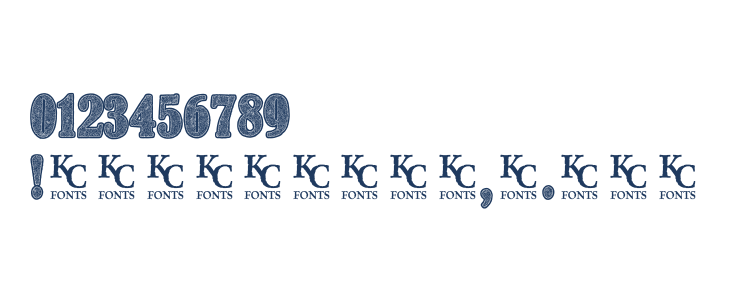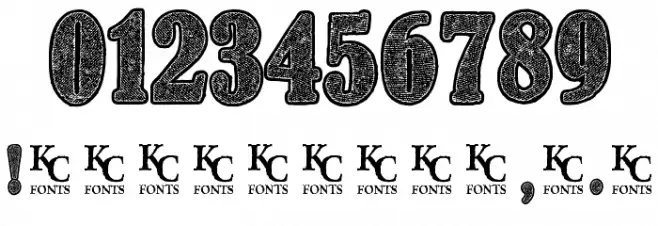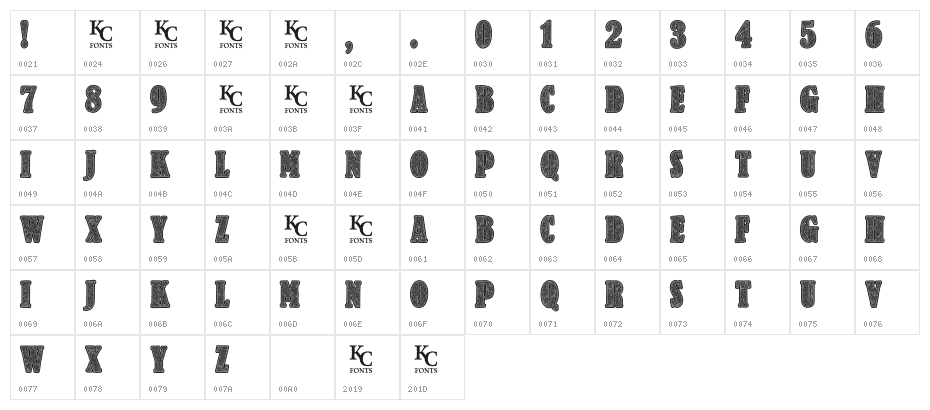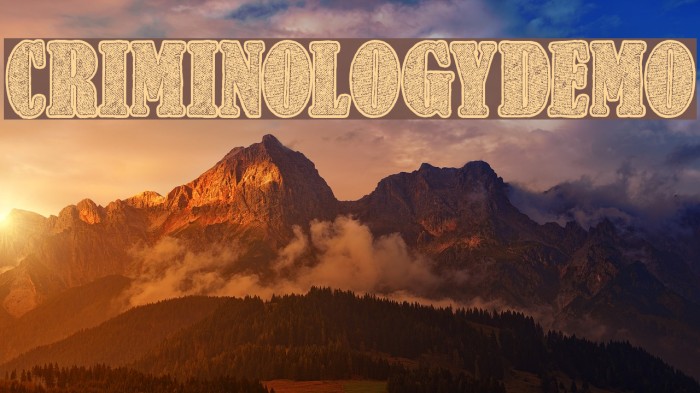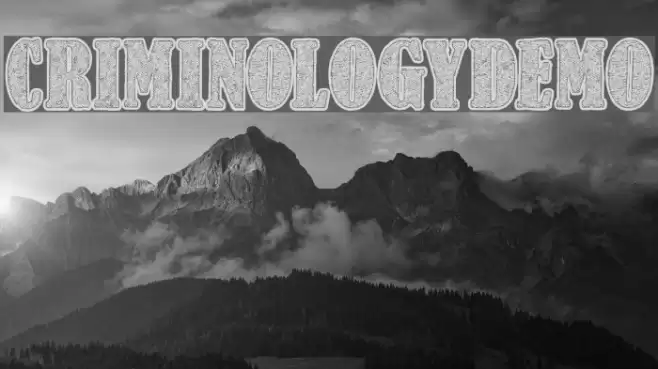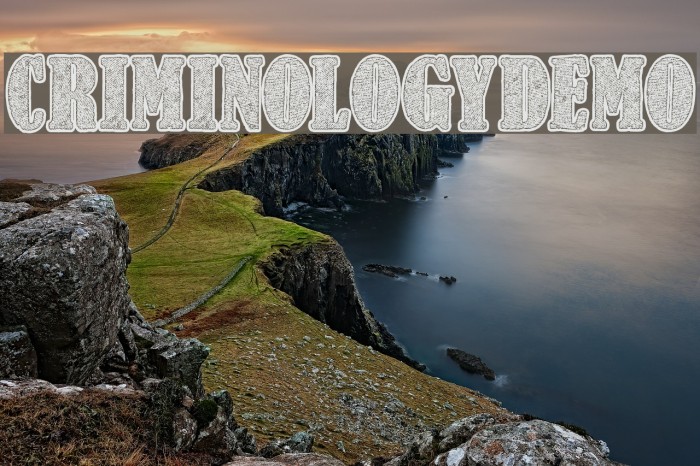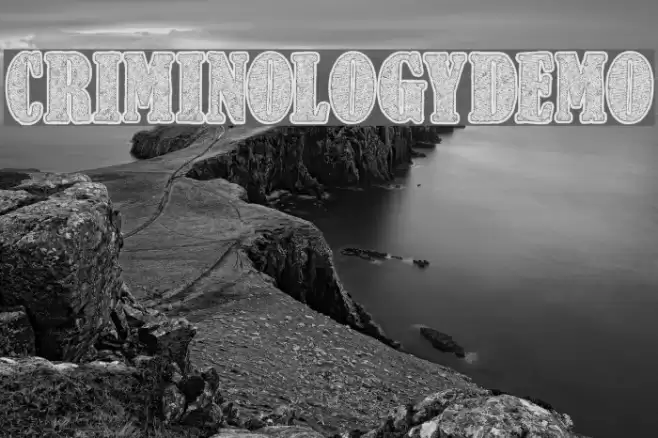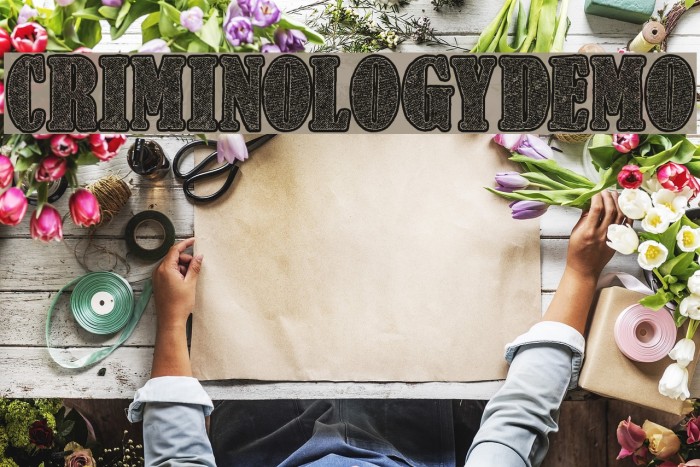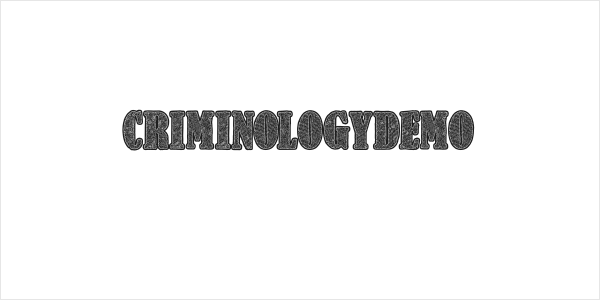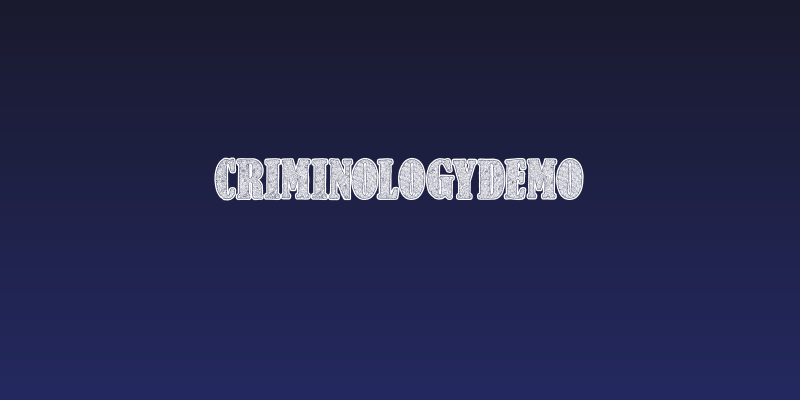
CriminologyDemo Font
CriminologyDemo Description
This font features a bold, textured design with a vintage appeal. Each character is filled with a distressed, stippled pattern that gives it a rugged, worn look. The uppercase and lowercase letters maintain a consistent style, with thick strokes and a slightly condensed form. The numbers and special characters follow the same aesthetic, ensuring a cohesive appearance across all glyphs. This font's unique texture and bold presence make it stand out, ideal for projects that require a strong visual impact.
| Proposed Projects | Perfect for posters, branding, vintage-themed designs, and any project needing a bold, textured look. |